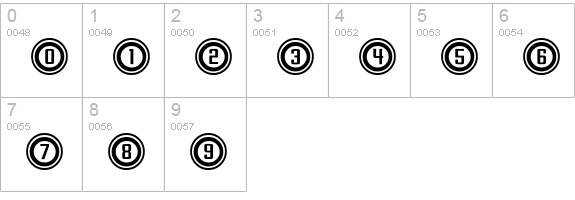
The Console Output font is a sleek and modern typeface designed for digital displays and programming interfaces. With its clean lines and easy readability, this font is perfect for showcasing code snippets and system outputs. The Console Output font is available for free download at FontsMarket.com, making it an accessible choice for developers and designers alike. Its versatility and clarity make it a go-to option for creating professional-looking console outputs in various projects. Upgrade your coding and design projects with the Console Output font today!